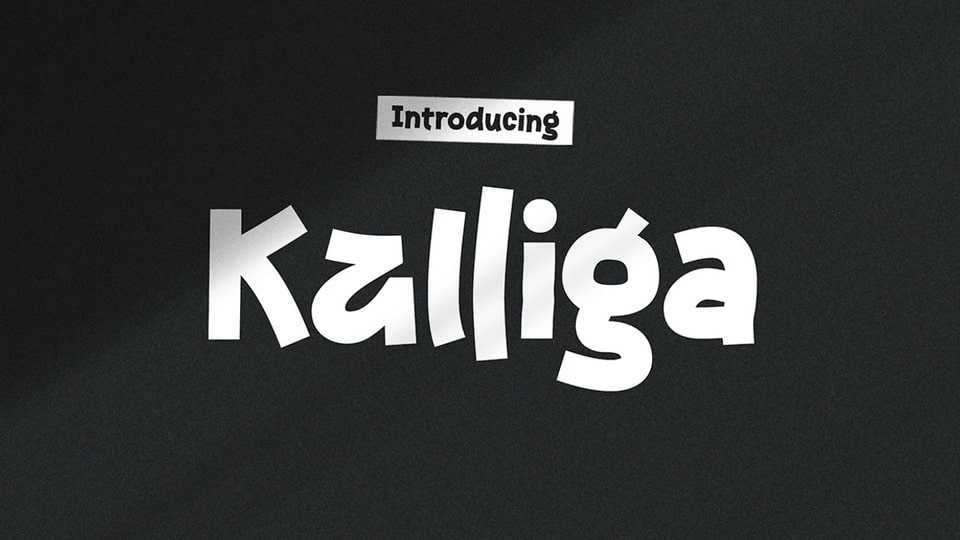
Download Kalliga font, a display typeface that embodies the essence of bold sophistication with its elegant handwriting style. Each stroke exudes confidence and grace, capturing attention with its refined presence.